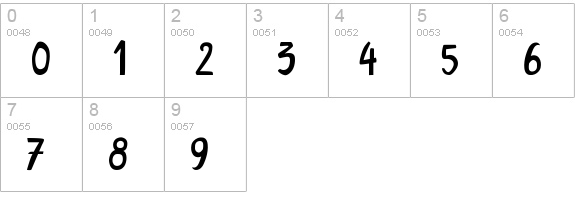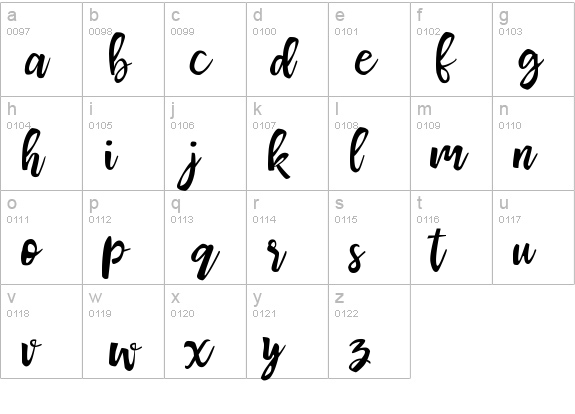
Mrs. Maillias is a free for personal use font in the Script > Brush category, designed by duka. It has been downloaded 421 times and is available for Windows, Mac and Linux.
Mrs. Maillias font is a stunning display typeface that exudes elegance and sophistication. With its intricate details and graceful curves, this font is perfect for adding a touch of class to any design project. Its timeless beauty and versatility make it a must-have for designers looking to elevate their creations.